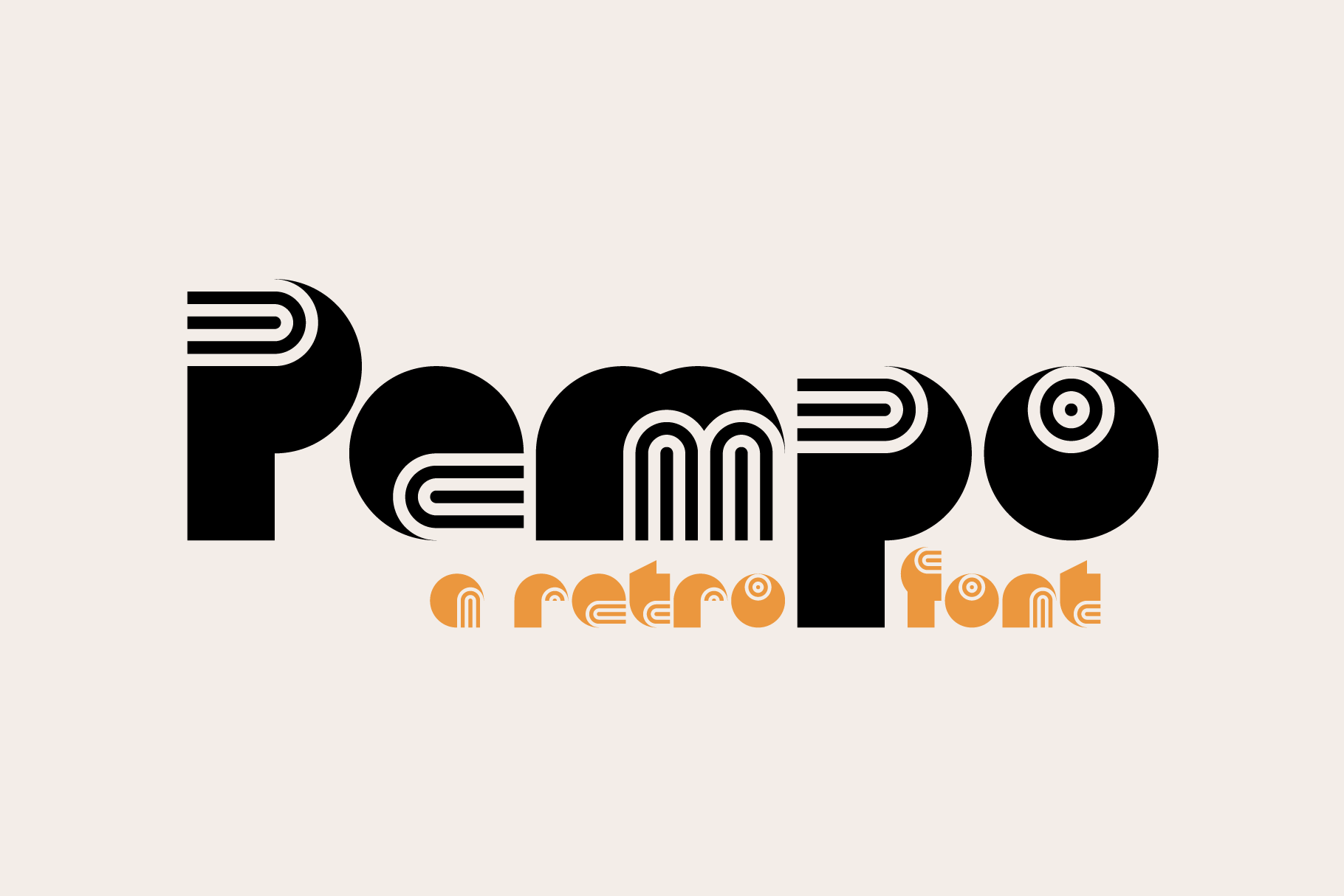
KD Pempo - A Retro Font
KD Pempo - A retro multiline display font for your old-school, nostalgic projects. Supports a large set of characters incl. Cyrillic script.